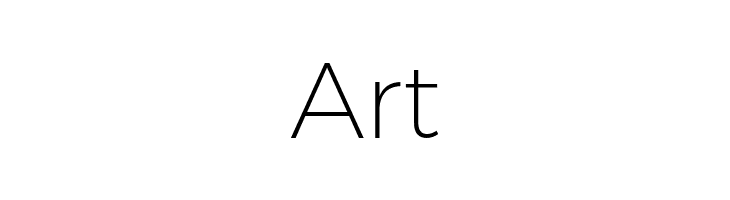
• Argentum Novus Black Italic
A bold, italicized font with thick strokes and dynamic slant.
• Argentum Novus Bold
A bold, modern sans-serif font with clean, geometric lines.
• Argentum Novus Bold Italic
A bold and italic font with a modern, dynamic style.
• Argentum Novus ExtraBold
A bold, modern typeface with thick strokes and excellent legibility.
• Argentum Novus ExtraBold Italic
A bold, italic font with a modern and dynamic style.
• Argentum Novus ExtraLight
A modern, extra-light sans-serif font with geometric shapes and smooth curves.
• Argentum Novus ExtraLight Italic
A sleek, modern italic font with a light weight and elegant style.
• Argentum Novus Italic
A modern, italic sans-serif font with clean lines and a dynamic style.
• Argentum Novus Light
A clean, modern font with a minimalist and uniform design.
• Argentum Novus Light Italic
A sleek, modern, light italic font with smooth curves and balanced spacing.